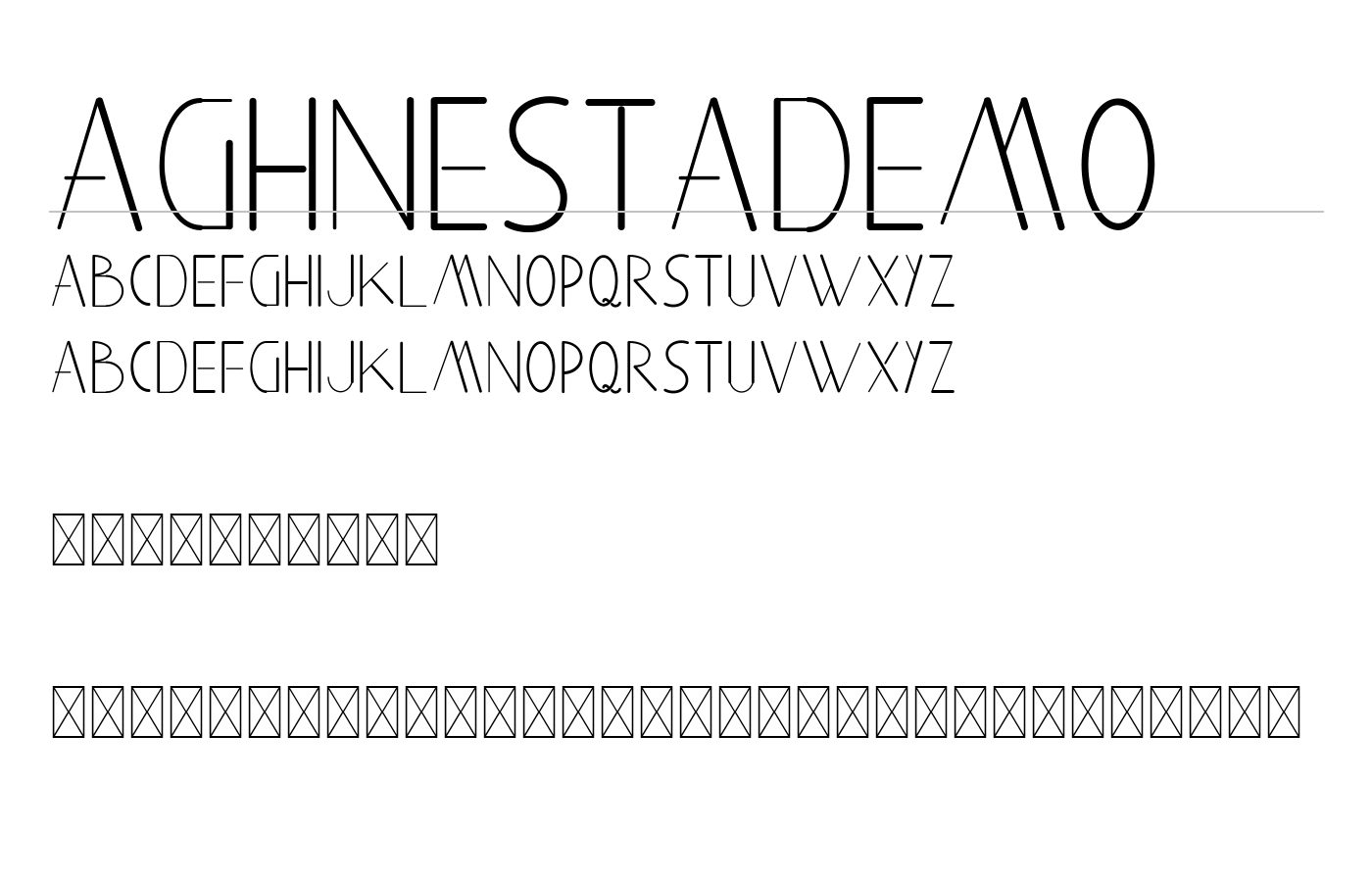
Aghnestademo is a highly stylized sans serif font featuring tall, narrow letterforms with delicate, consistent stroke weights and minimal contrast. Its geometric, art deco-inspired shapes give it an elegant, modern, and slightly futuristic feel, making it ideal for high-end branding, fashion logos, and sophisticated editorial headlines. This font works best in large sizes where its unique letter details and airy spacing can shine.
Aghnestademo Font
About Aghnestademo Font